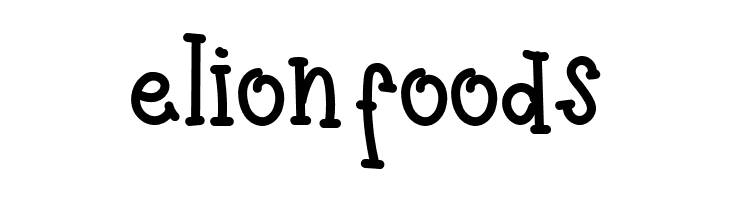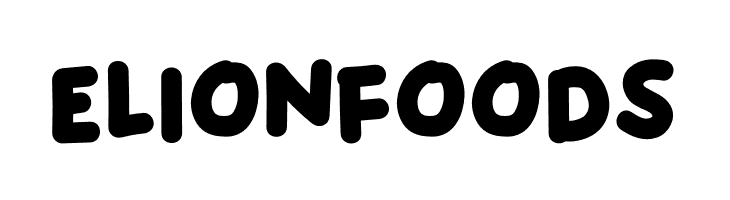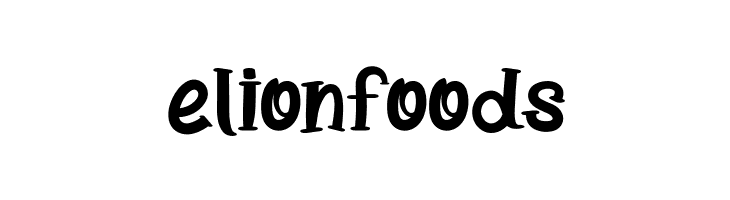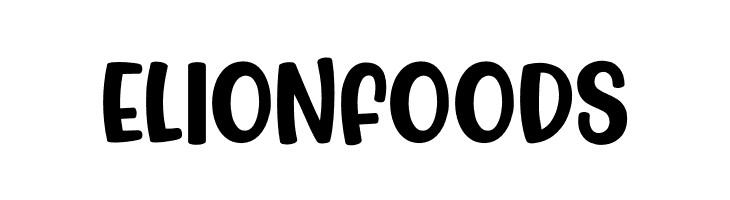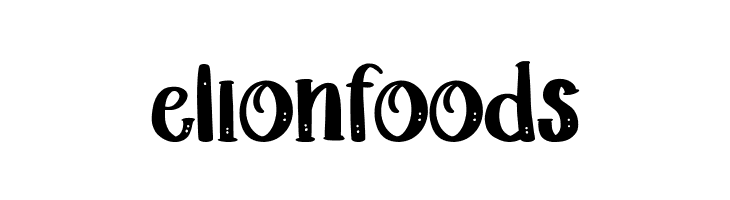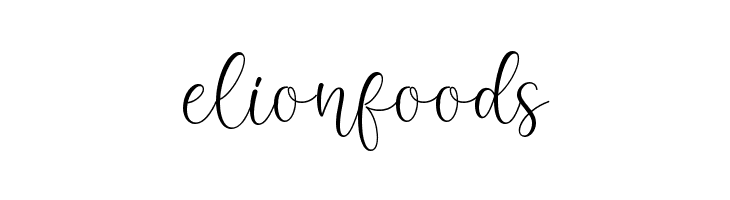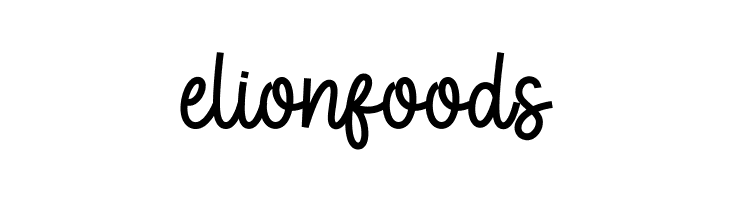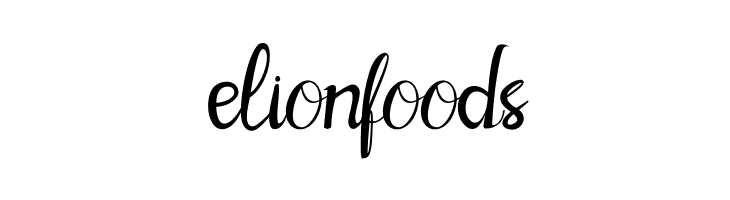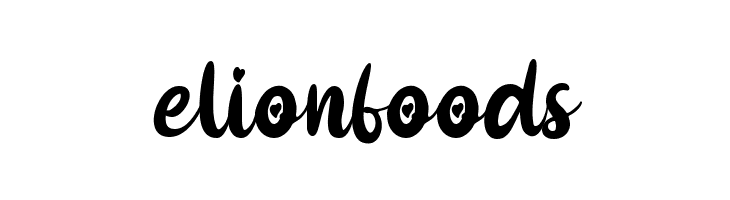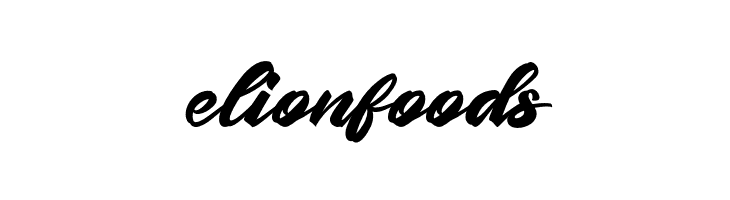
• Spindle Refined Regular
• BD Spinner
( Büro Destruct - Lorenz Gianfreda - www.typedifferent.com/ )
• Dalek Pinpoint Bold
( K-Type - Keith Bates - www.k-type.com/ )
A bold, geometric font with sharp angles and a futuristic aesthetic.
• Pink Blue
( Rometheme - Yahdi Kumala - creativemarket.com/Rometheme?u=Rometheme )
A bold, brush-style font with dynamic, hand-painted strokes.
• Pinnocio
( Fonts by Haksen Letters )
A playful, hand-drawn font with a whimsical and friendly style.
• Dalek Pinpoint Bold
• HAPPINESS
( Fonts by Fanastudio )
A playful, bold font with rounded edges and a friendly appearance.
• Pinyon Script
• Pink Bird
( Fonts by Nico Muslib )
A playful, bold, and whimsical font with rounded letterforms and decorative flourishes.
• Pink Horn Unicorn
( Fonts by Kurnia Setyadi )
A playful, hand-drawn font with bold, rounded characters.
• Bungee Jumpings
( Fonts by Supersemar Letter )
A playful, handwritten-style font with tall, narrow letters and consistent stroke width.
• Jumping Unicorn
( Fonts by Subectype & Orenari )
A playful, bold font with rounded, bubbly characters and a lively, informal style.
• Little pinky doodles
( Fonts by Gie Studio )
Playful, abstract doodles with a dynamic and whimsical style.
• Little Pinky
( Fonts by Gie Studio )
A playful, hand-drawn font with tall, narrow letters and a whimsical style.
• Pink Rabbit - Personal Use
( Fonts by Agustina Sri Suryanti )
A playful, bold font with rounded characters and a lively style.
• Pink Reef
( Fonts by nomlimofont )
A playful, hand-drawn font with bold, whimsical characters.